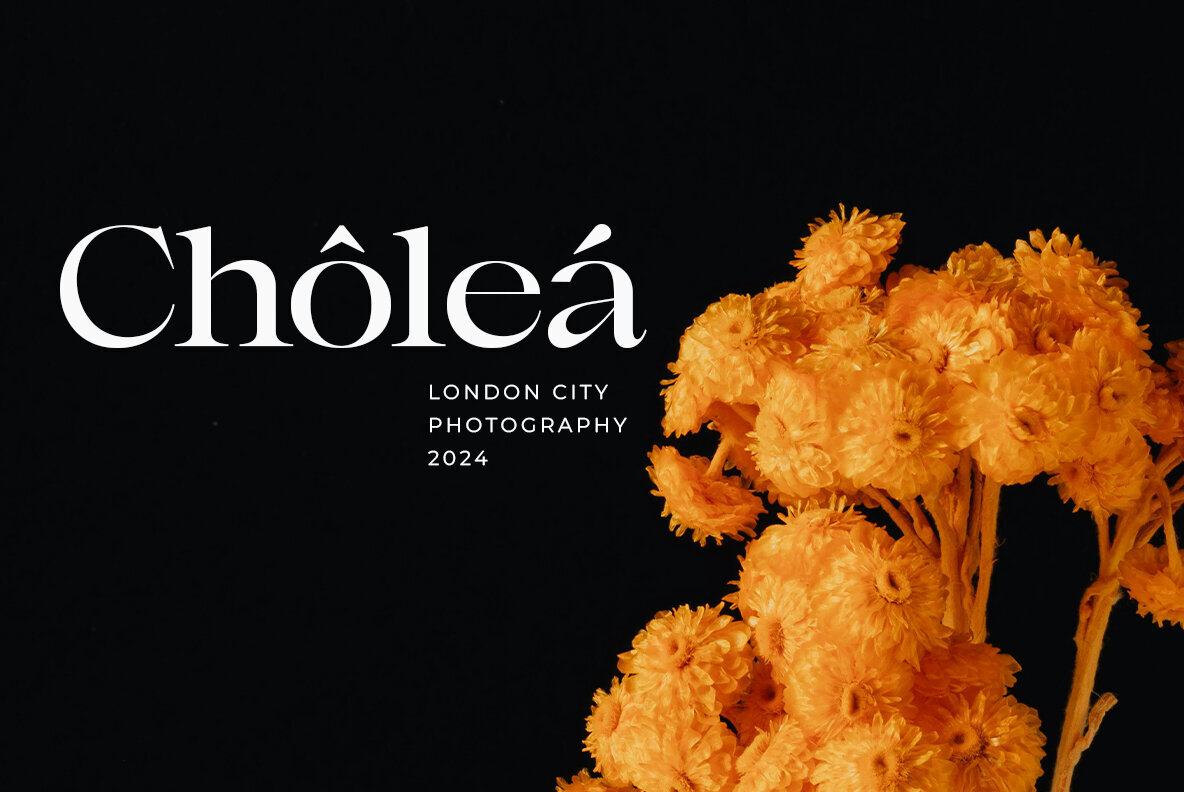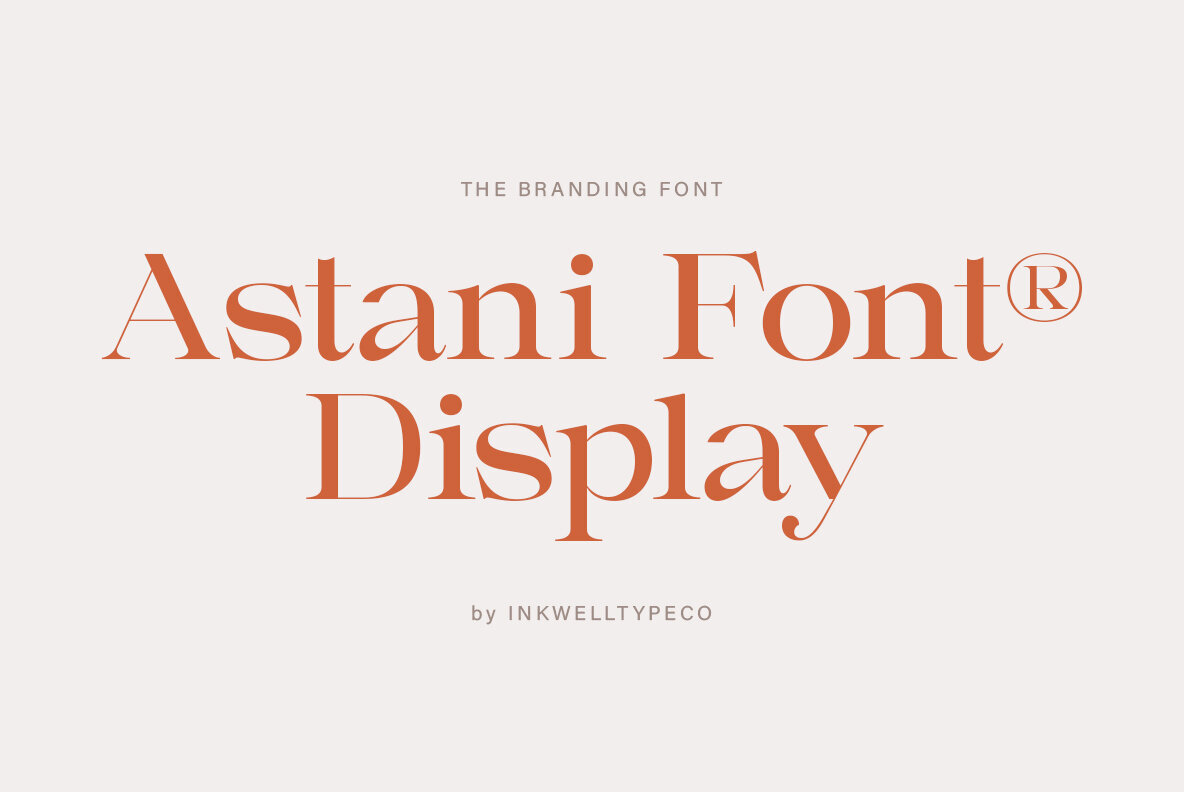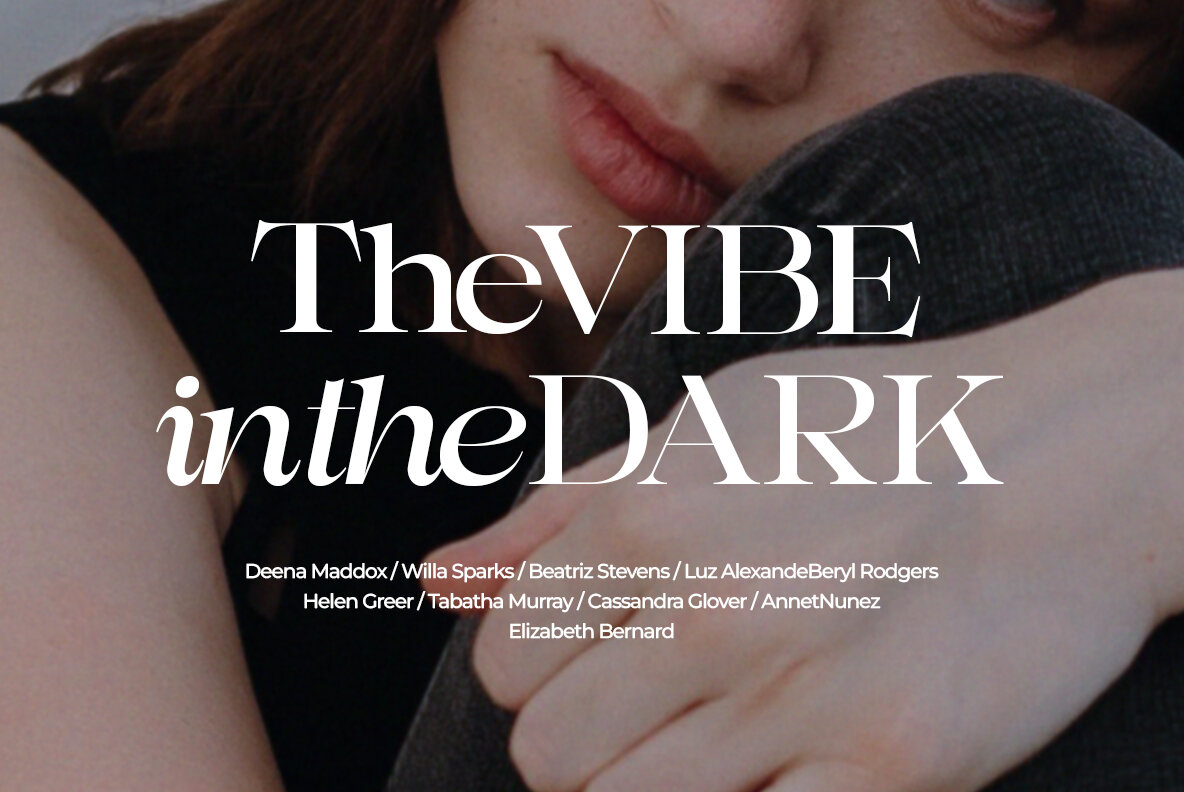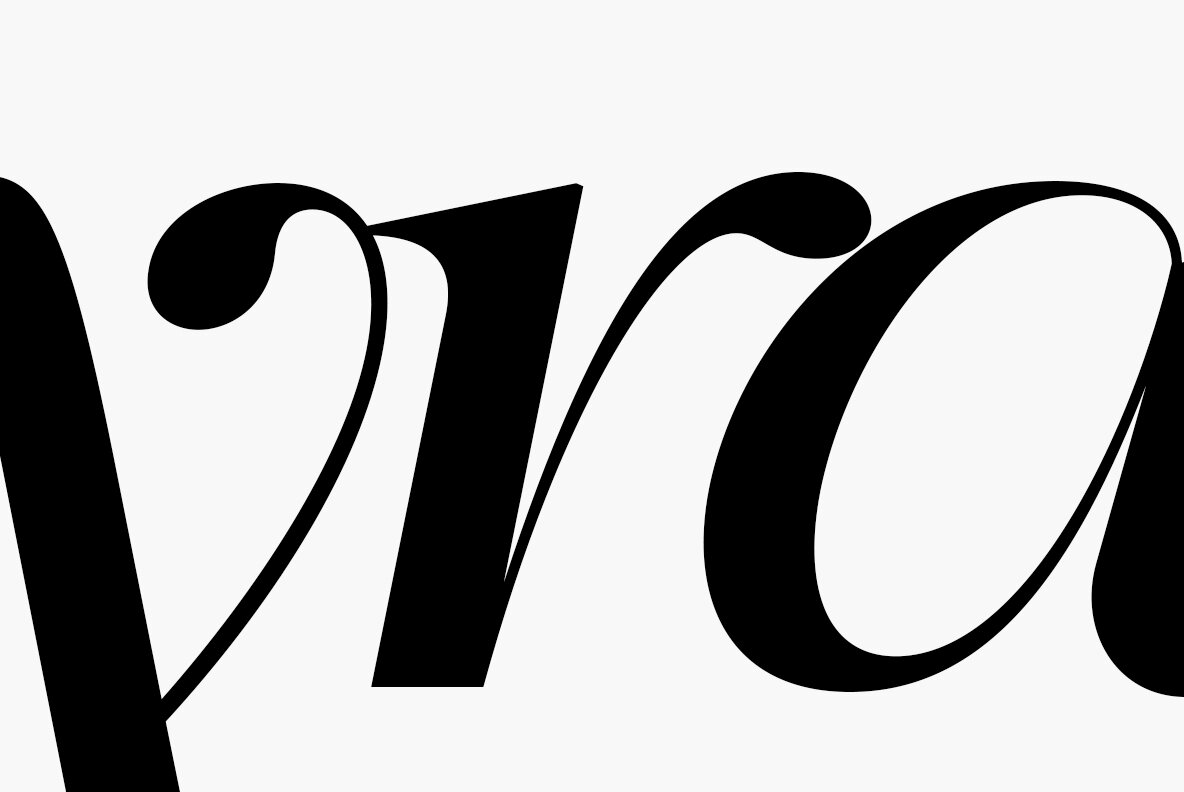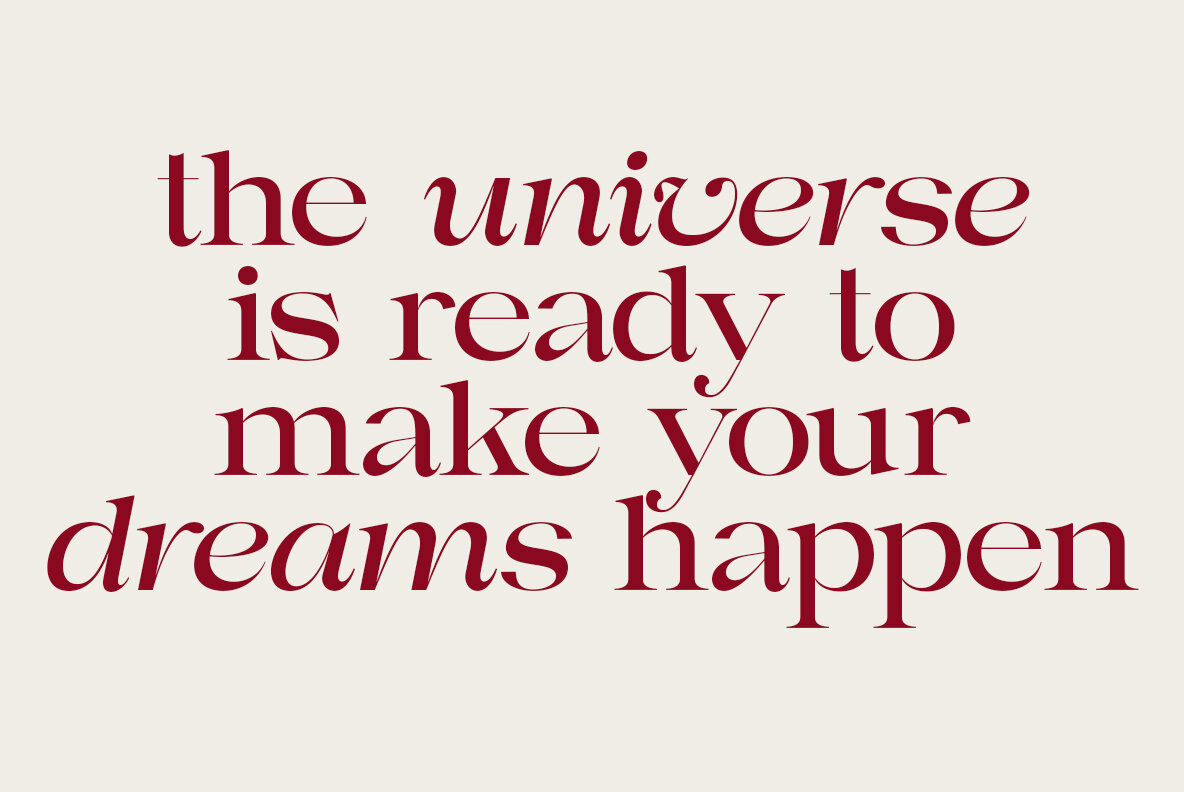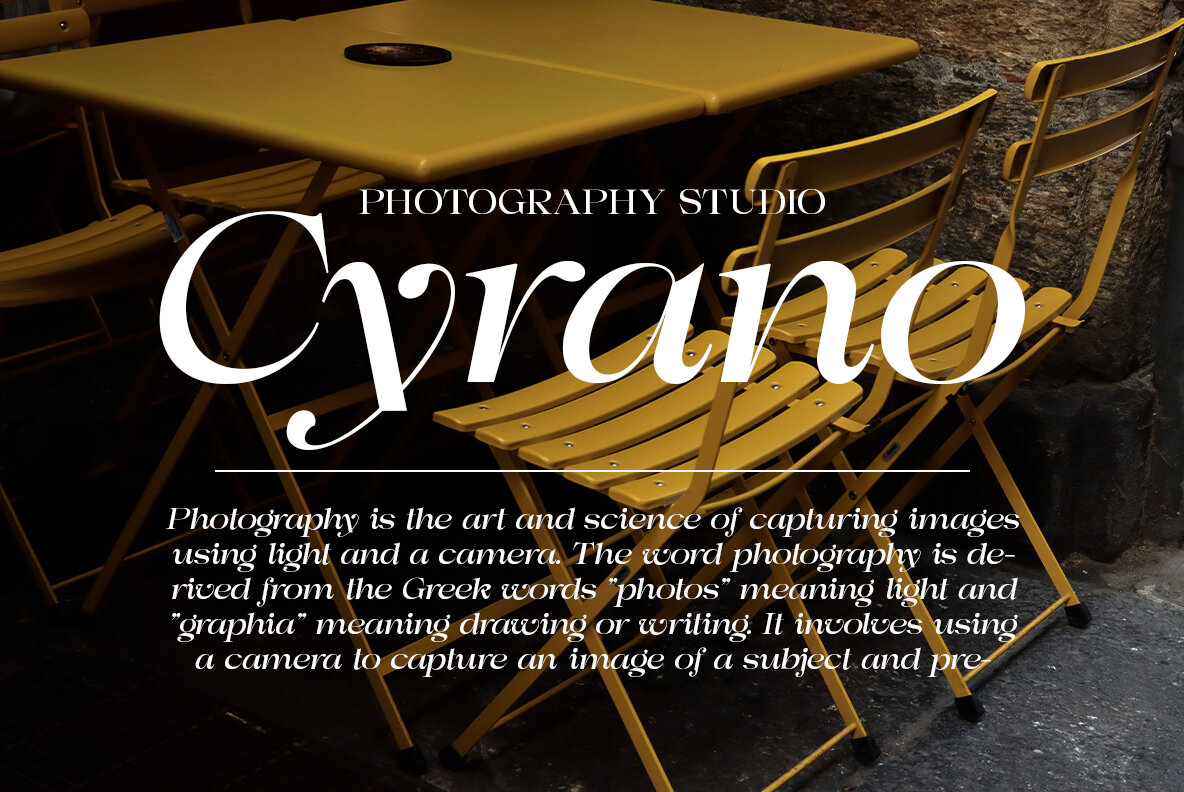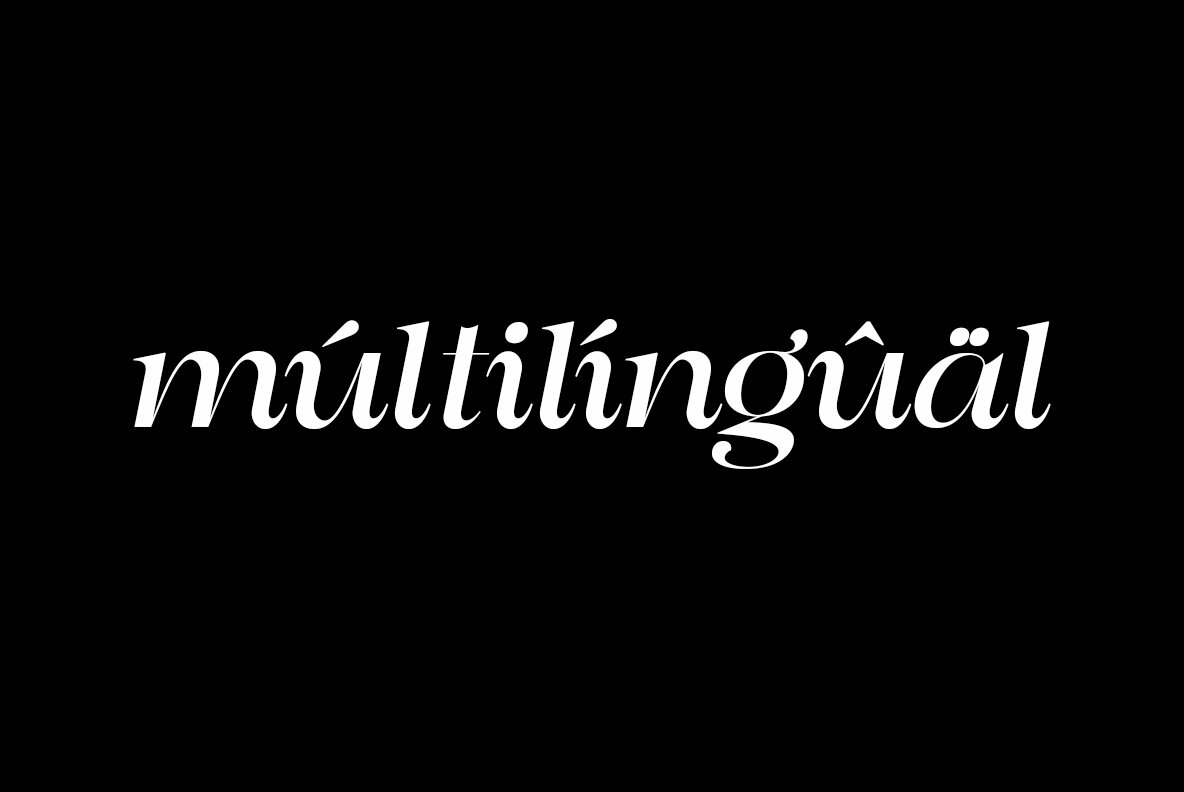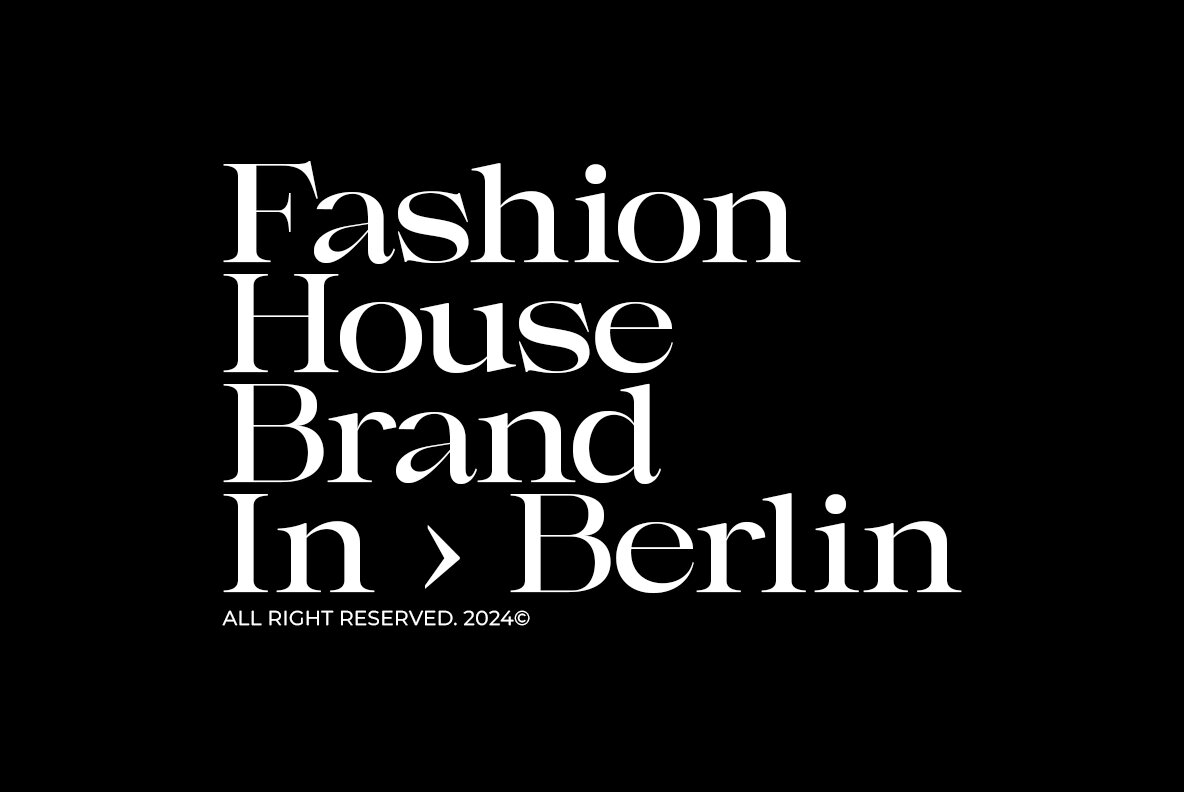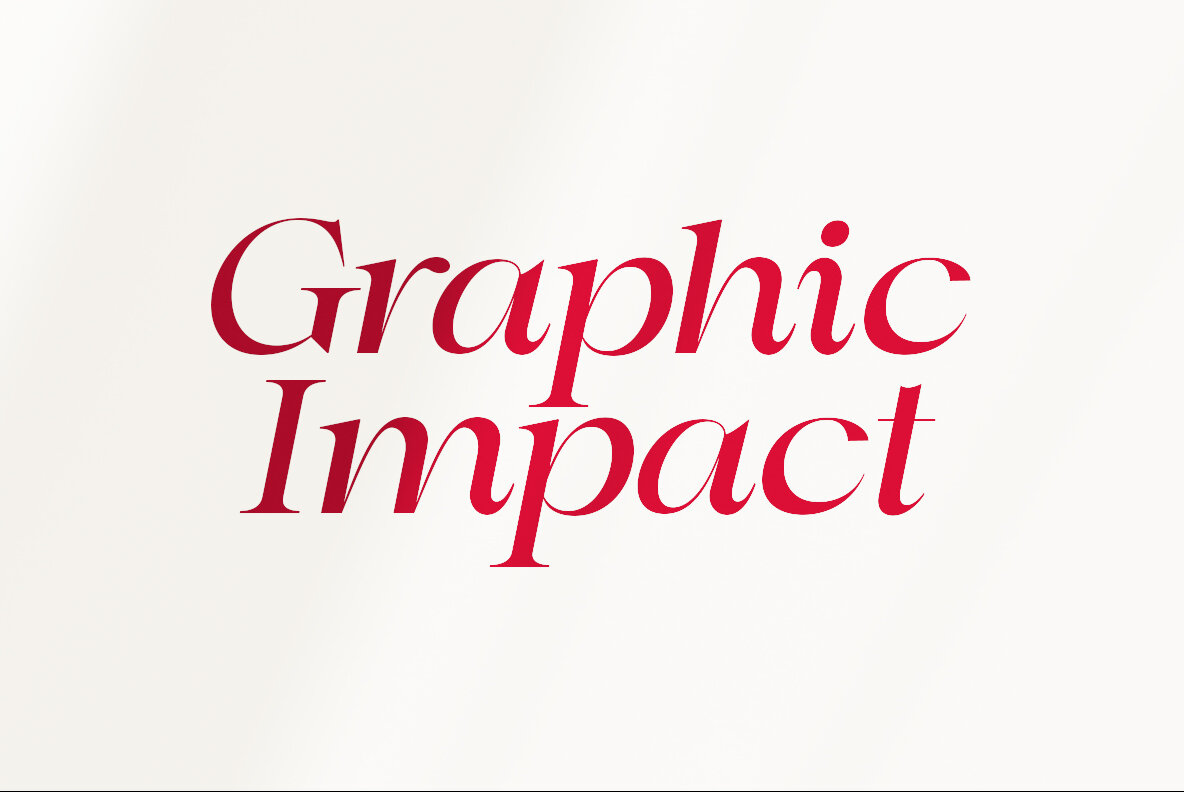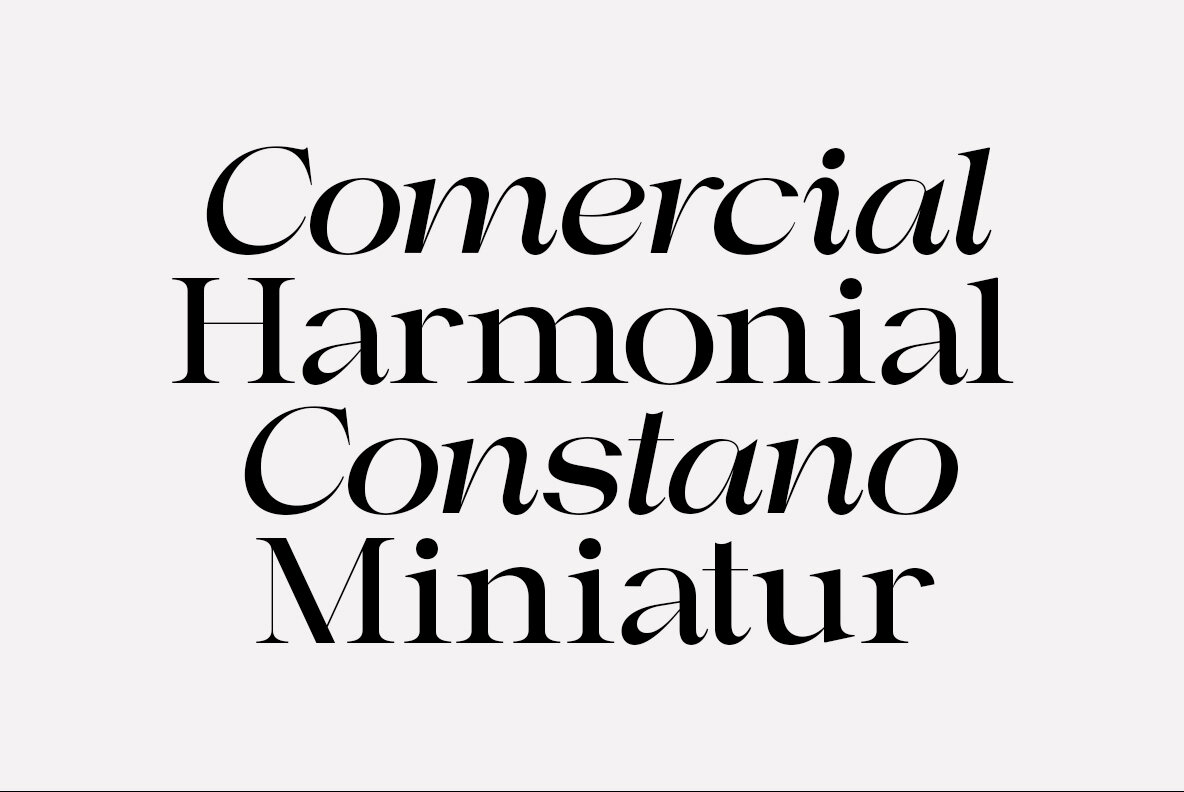
Astani Font
Astani is the embodiment of harmony between classic elegance and modern freshness. With smooth yet bold lines, this font combines traditional elements with a fresh, contemporary touch. Regular styles feature strong, stable characters, suitable for use in long texts, paragraphs, or headings. Each letter is carefully shaped, creating a clean, easy-to-read appearance. Meanwhile, the italic style adds a dimension of elegance and dynamism. Its gentle slant gives the text a touch of boldness and elegant continuity. Suitable for emphasizing key words, emphasis, or design elements that require visual prominence. Available in a variety of sizes, this font is very versatile and can be used for a variety of design projects, from printed materials to digital designs. With a unique character but still legible, this font will be a valuable asset for designers and content creators who are looking for a classy but still modern look.